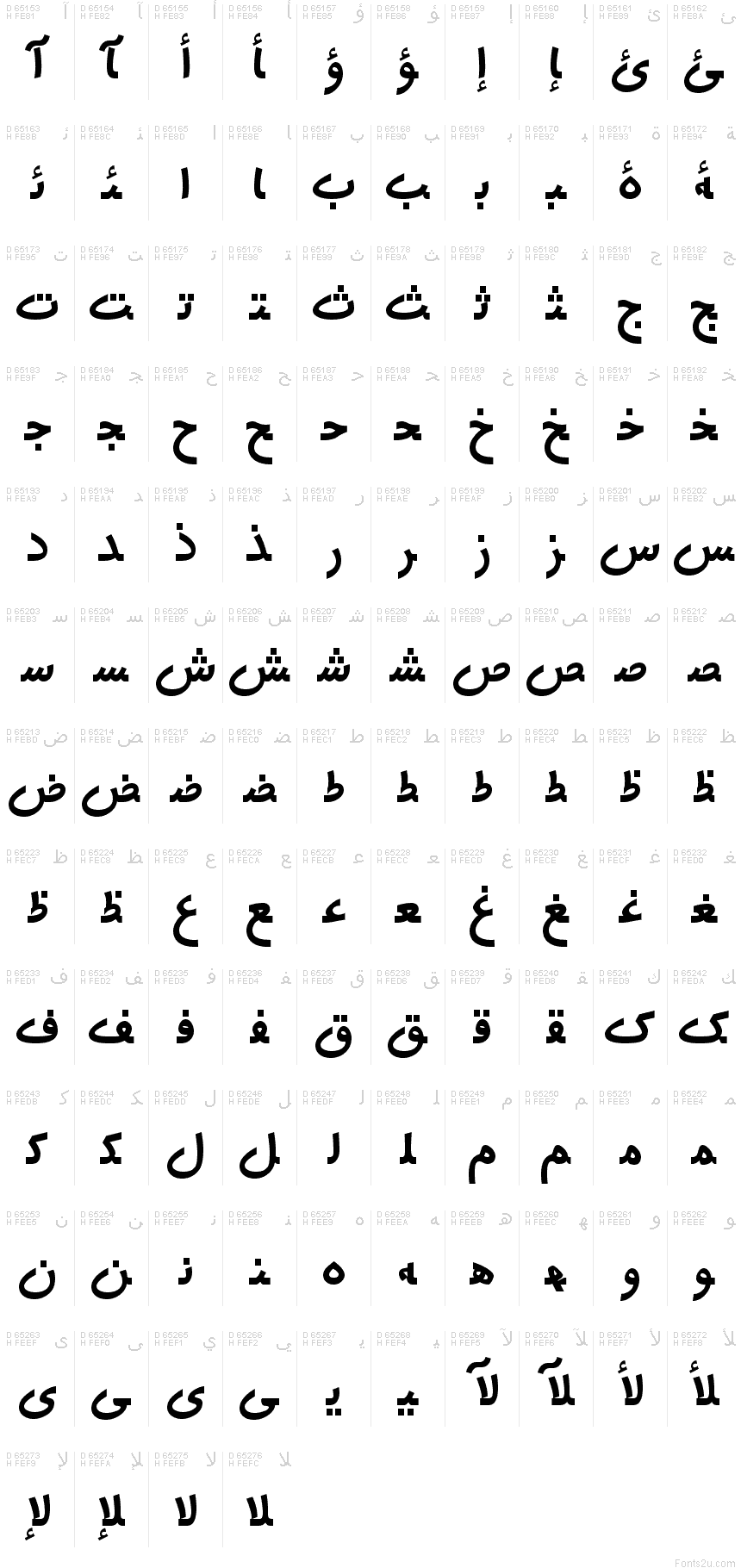
B Mehr Bold by Borna Rayaneh is a free Arabic display font shaped by broad black strokes, rounded tops, and firm vertical pressure that give the lettering a heavy, planted look. The forms read as confident and compact, with a strong graphic mass that feels built for display rather than long text.
B Mehr Bold makes sense on posters, packaging, restaurant branding, book covers, and editorial graphics, where the free font can carry short text with force. It is especially convincing in headlines, title cards, and cover lines, since the dense shapes stay readable as a single visual block without losing their Arabic rhythm.